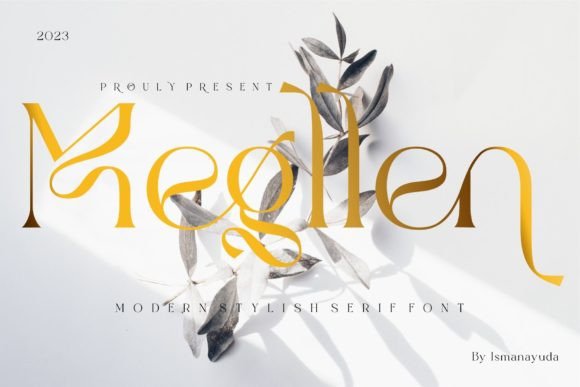
Behold the Megllen Font, a masterful serif typeface that will transform your designs into captivating masterpieces. Inspired by the allure of tradition and the vibrancy of modernity, Megllen Font is crafted to perfection, offering a symphony of sophisticated curves and crisp serifs.
Immerse yourself in the world of Megllen Font, where elegance and functionality unite seamlessly. Its timeless beauty will effortlessly elevate your projects, whether you're crafting captivating logos, elegant brochures, or engaging presentations.
With its versatile letterforms, Megllen Font adapts effortlessly to your creative needs. Each character is meticulously designed to ensure impeccable legibility, ensuring your messages are conveyed with clarity and impact. Whether you're crafting editorial masterpieces, creating stunning branding, or designing user-centric interfaces, Megllen Font seamlessly adapts to match your vision.
Unleash your creativity and let Megllen Font take center stage. Its inherent charm will captivate audiences, leaving a lasting impression that sets your work apart. Embrace the power of timeless sophistication and elevate your designs to new heights.